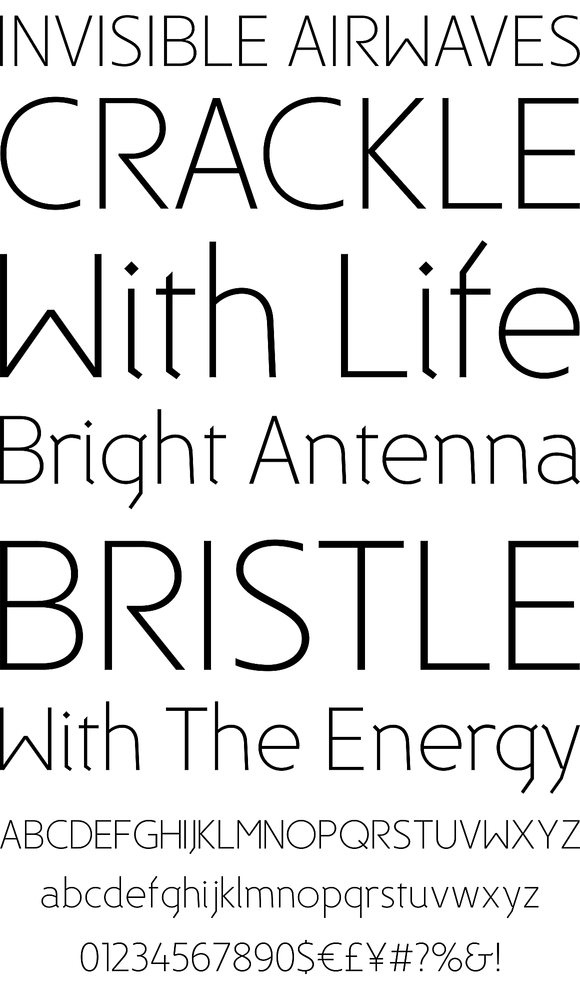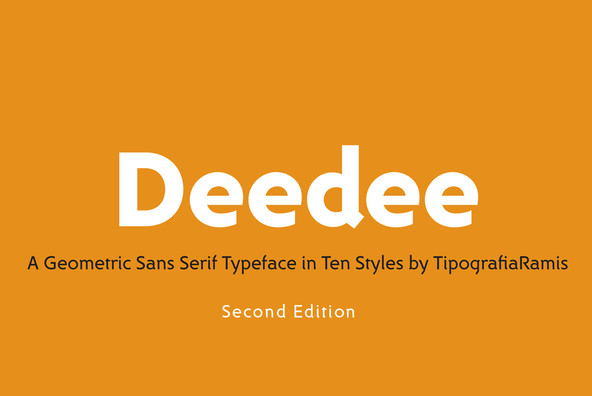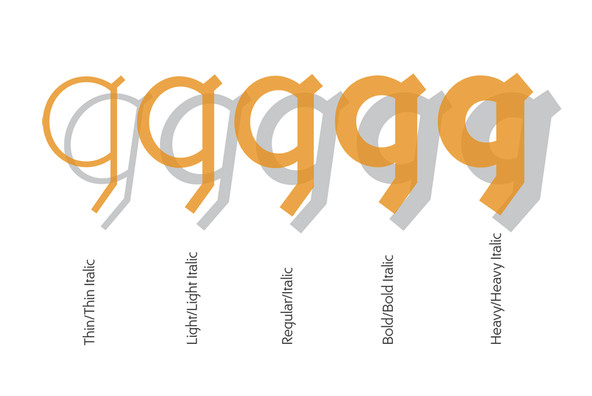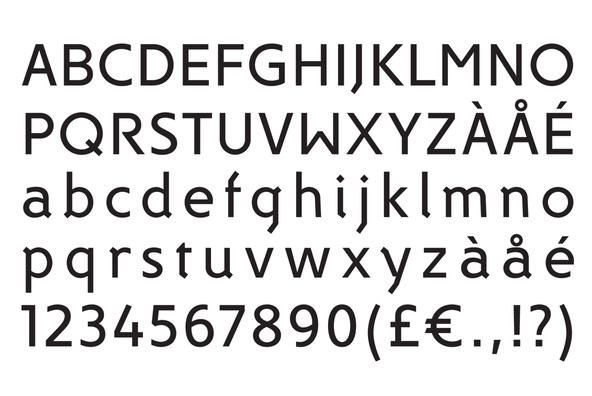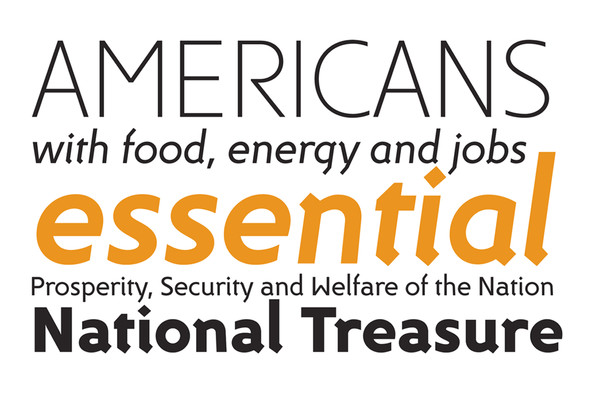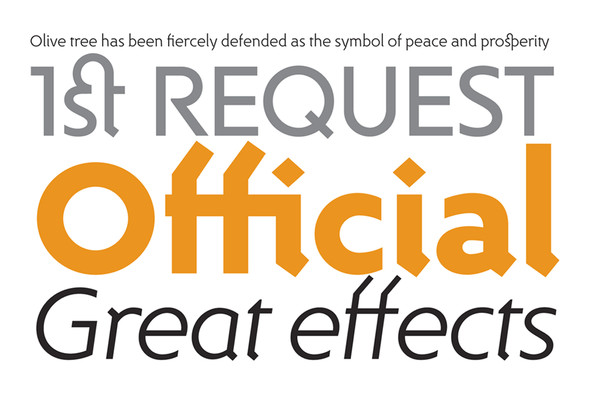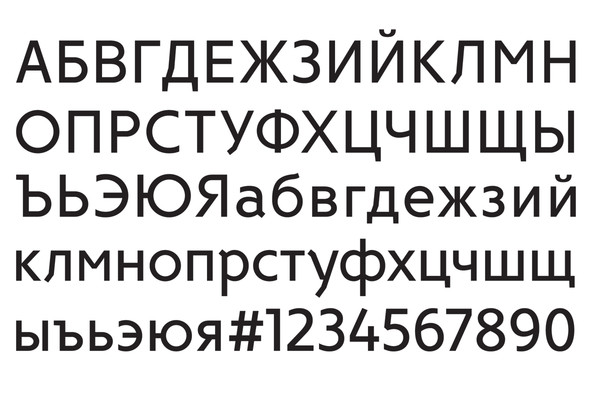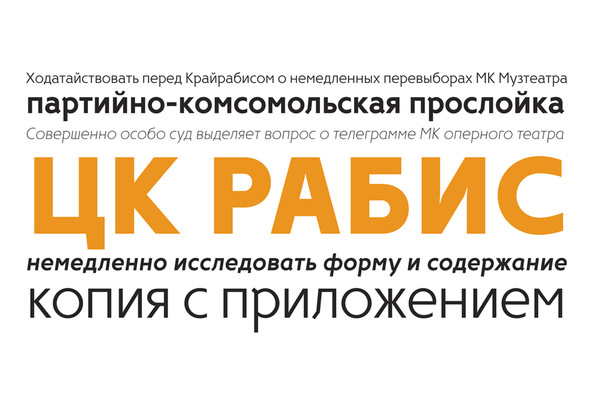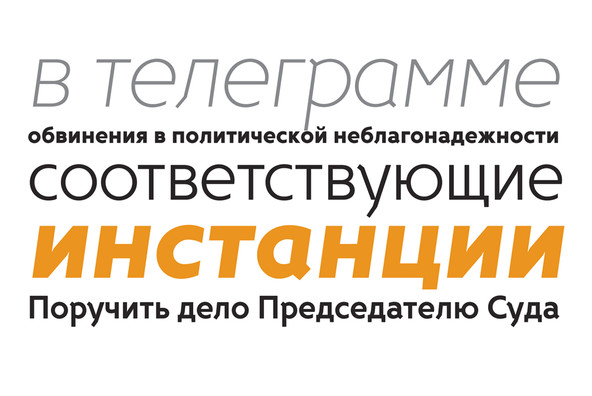
DeeDee is a geometric sans serif typeface family of ten styles - thin, light, regular, bold, heavy in roman and italic respectably. DeeDee typeface is direct relative to older siblings of Dina family. Although all glyphs have gone through complete shape refinements, visual impression of the typeface still remains quirky by appearance. The amount of glyphs was significantly extended, which enabled support of more Latin languages as well as full support of Cyrillic. The typeface is ideal for use in display sizes though is quite legible in text.